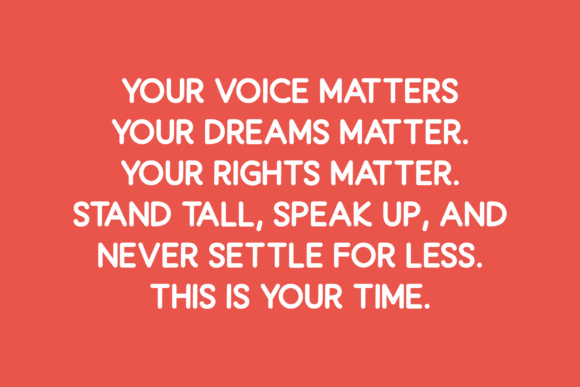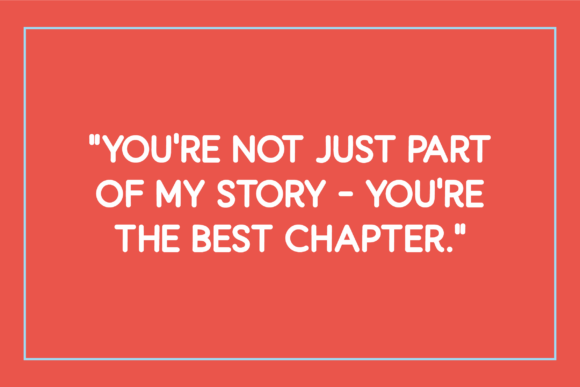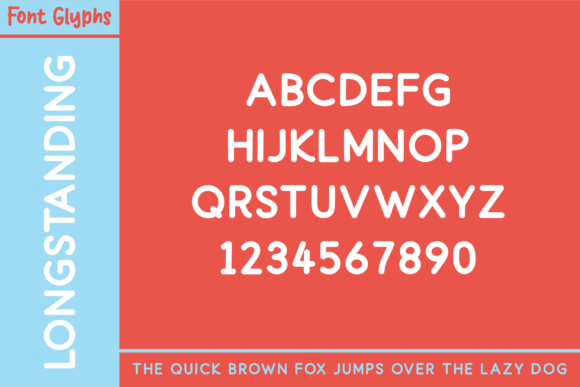
Longstanding Font
Make an impact with Longstanding, a handwritten font that combines a strong, bold presence with a charming, personal touch. Ideal for branding, packaging, social media, and print, its unique style adds warmth and authenticity to any design. Achieve a professional yet approachable aesthetic with it.